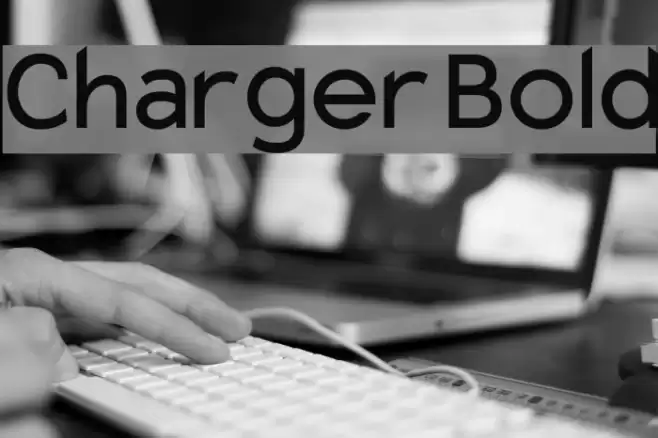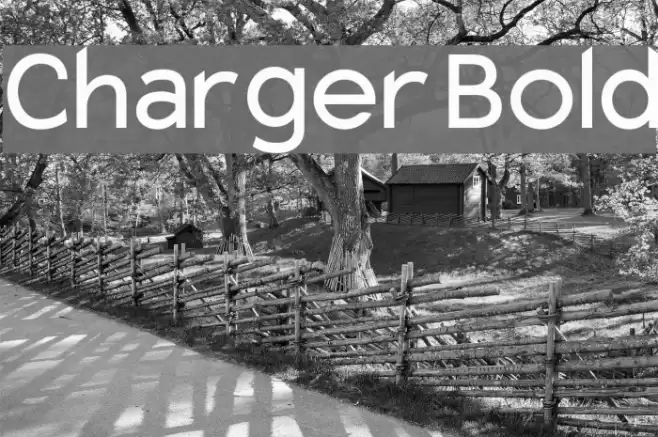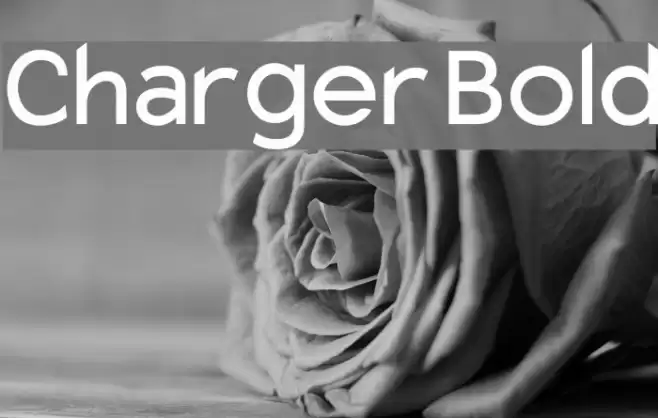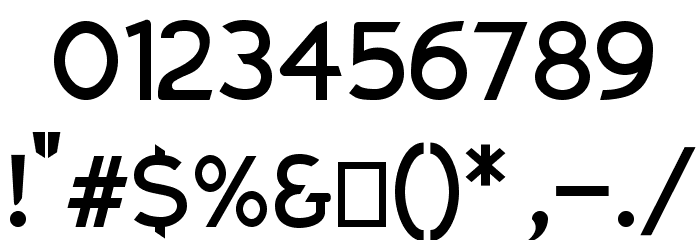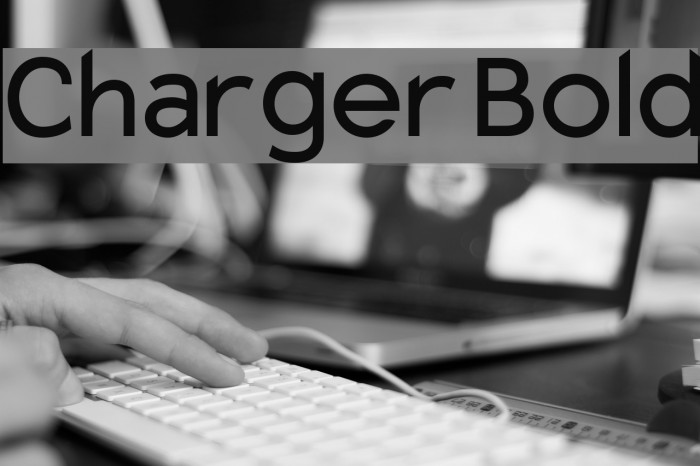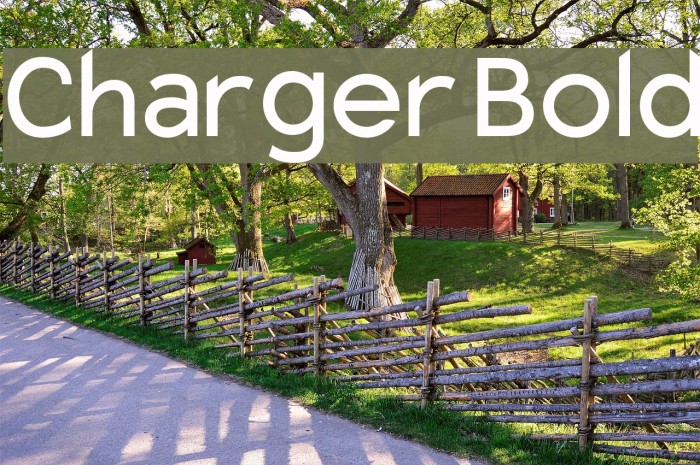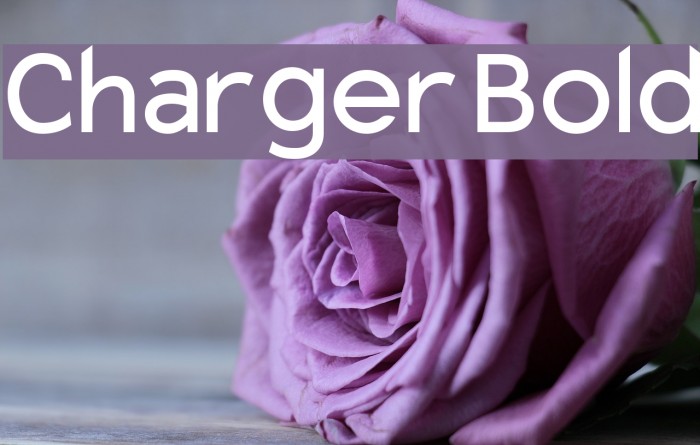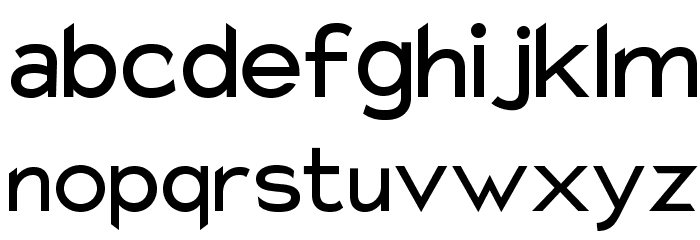
Charger Bold Font
Charger Bold Description
This font features a bold and modern sans-serif style with clean lines and a geometric structure. The uppercase and lowercase letters are well-proportioned, offering a harmonious appearance. The numerals are clear and distinct, making them easily readable. Special characters are included, maintaining the font's cohesive design. The overall look is sleek and contemporary, suitable for a variety of design applications.
A bold, modern sans-serif font with clean lines and geometric structure from Uncategorized fonts.